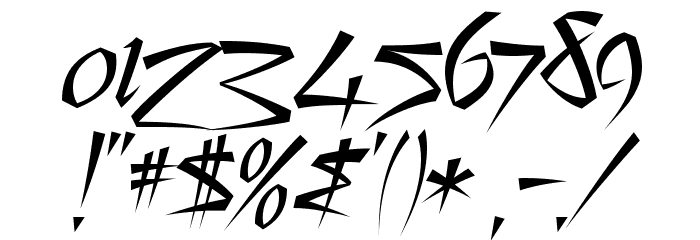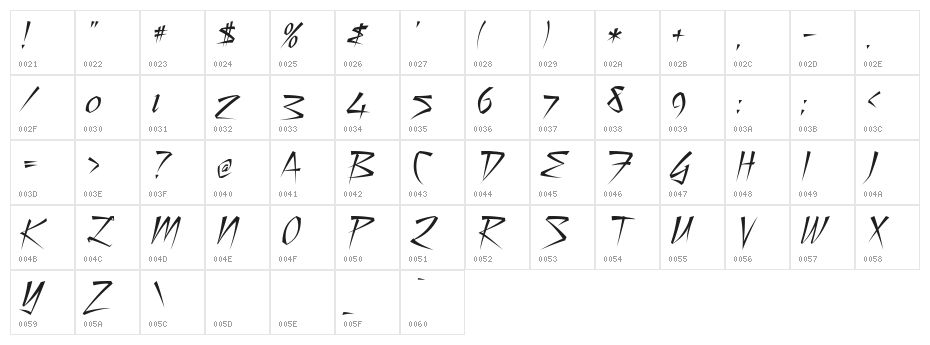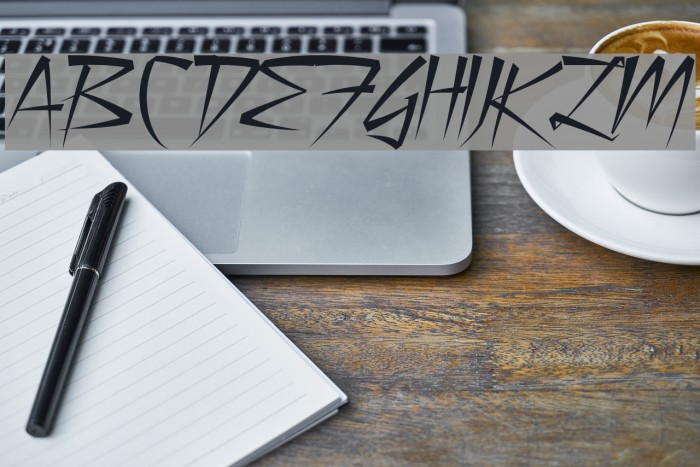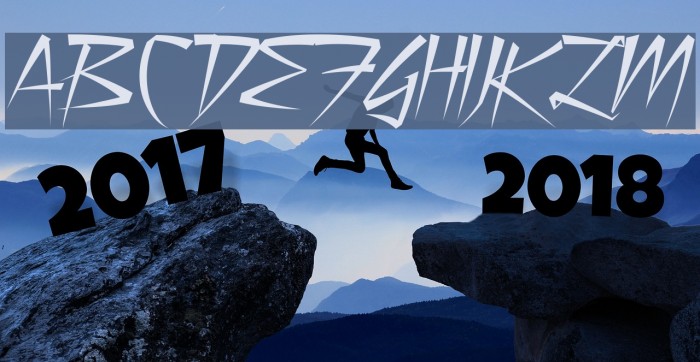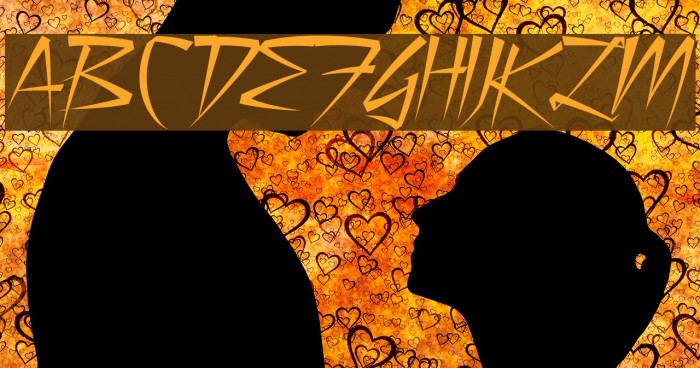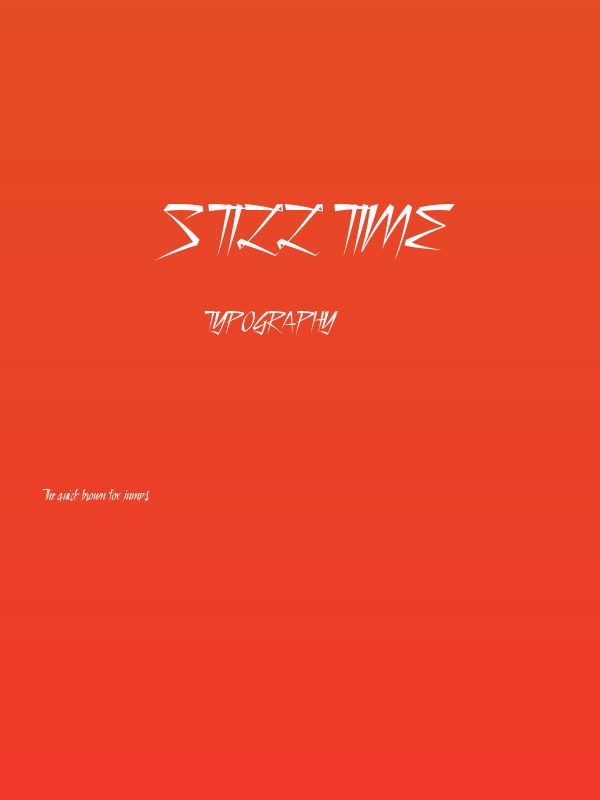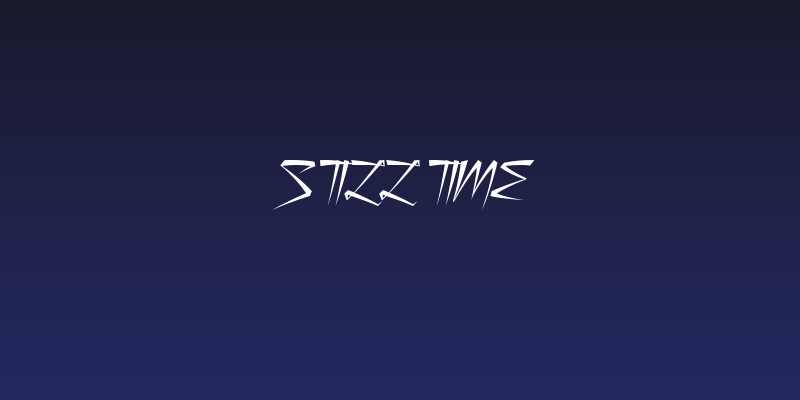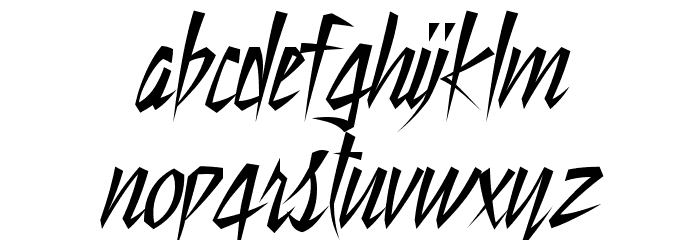
Still Time Font
Still Time Description
This font features a dynamic and edgy style with sharp, angular lines and a graffiti-like appearance. The uppercase and lowercase letters exhibit a consistent slant, giving a sense of motion and energy. The characters are bold and striking, with exaggerated points and curves that create a sense of urgency and modernity. The numbers and special characters maintain the same aggressive style, ensuring a cohesive look across all text. This font is ideal for projects that require a bold statement or a contemporary, urban feel.